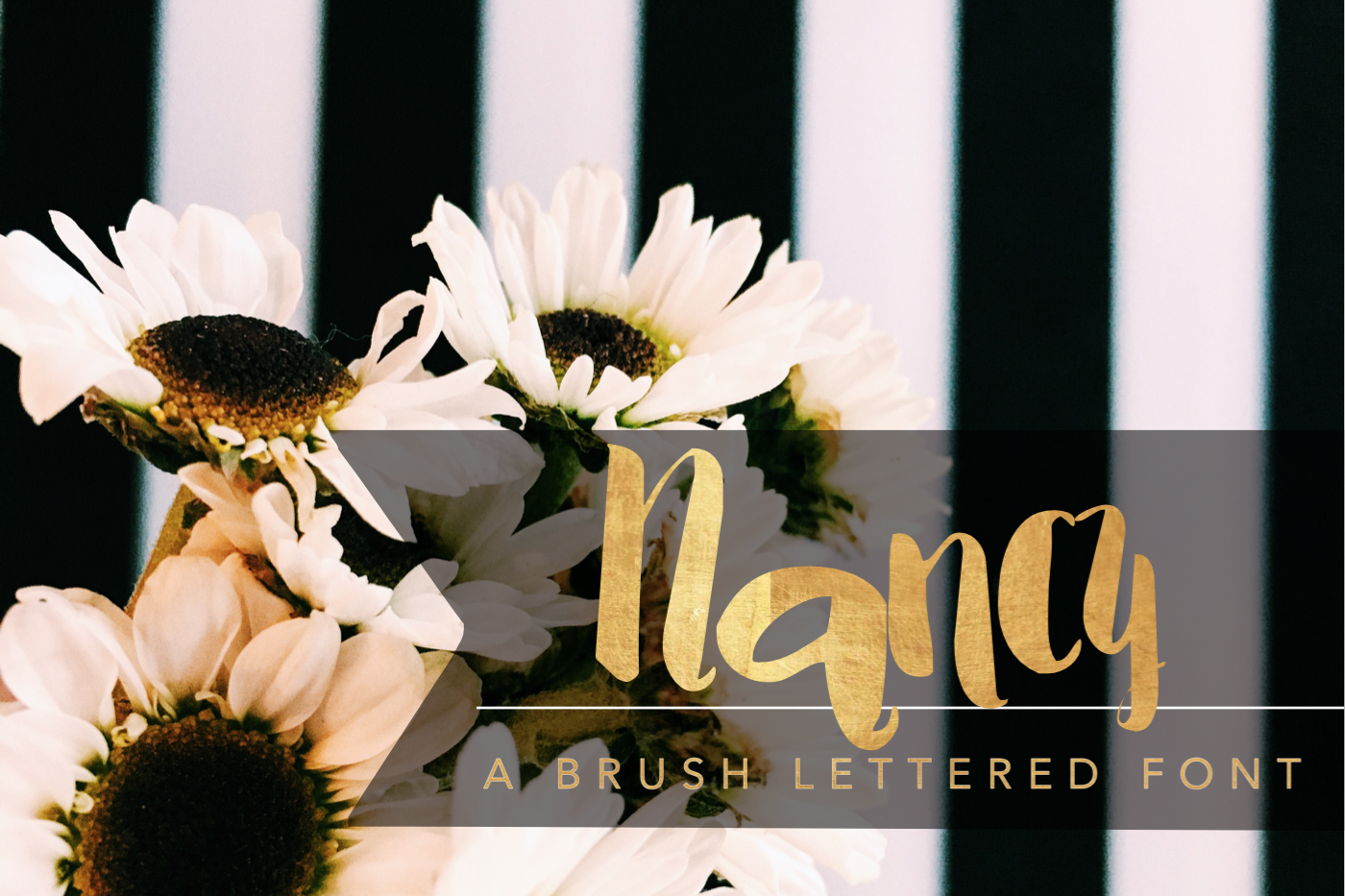
NANCY Brush Lettered Font
Meet my dear friend, Nancy! She's funky, spunky & always uplifting! This brush lettered font is mixed in quirky ways for a very unique way of expressing yourself via typeface!